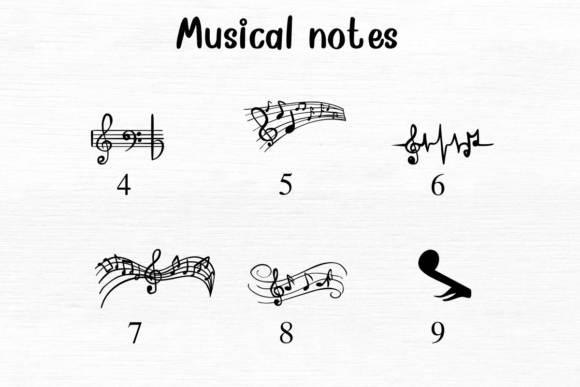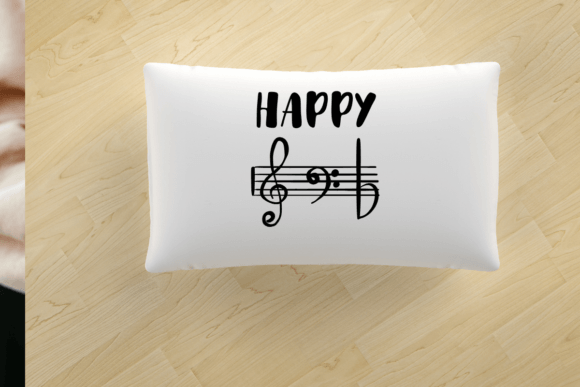
Musical Notes Font
Musical Notes is a fun font where each letter and number is replaced by a music symbol. Instead of regular letters, you’ll see things like notes, clefs, and other music-related signs. It’s perfect for adding a musical touch to your designs or documents.